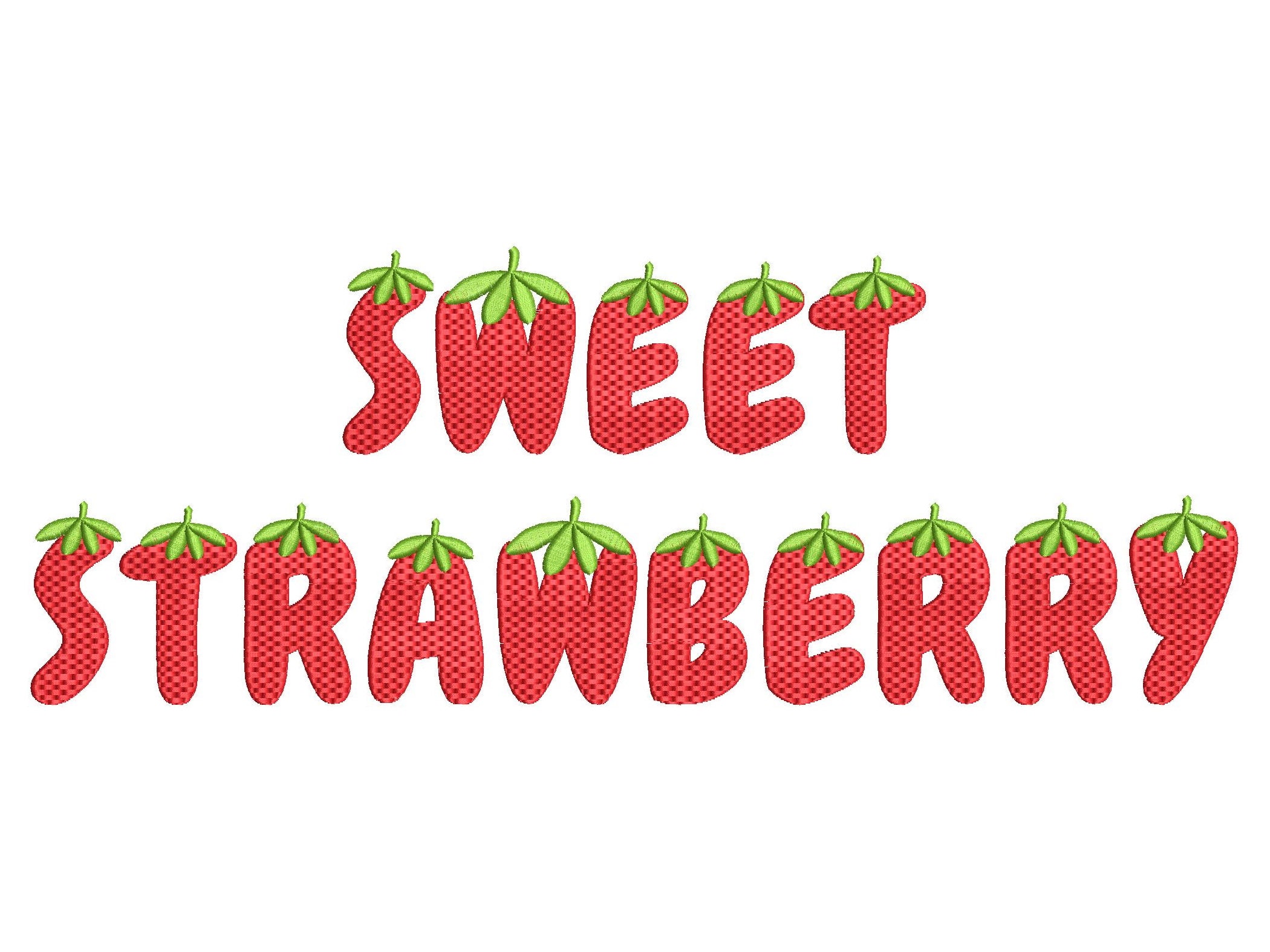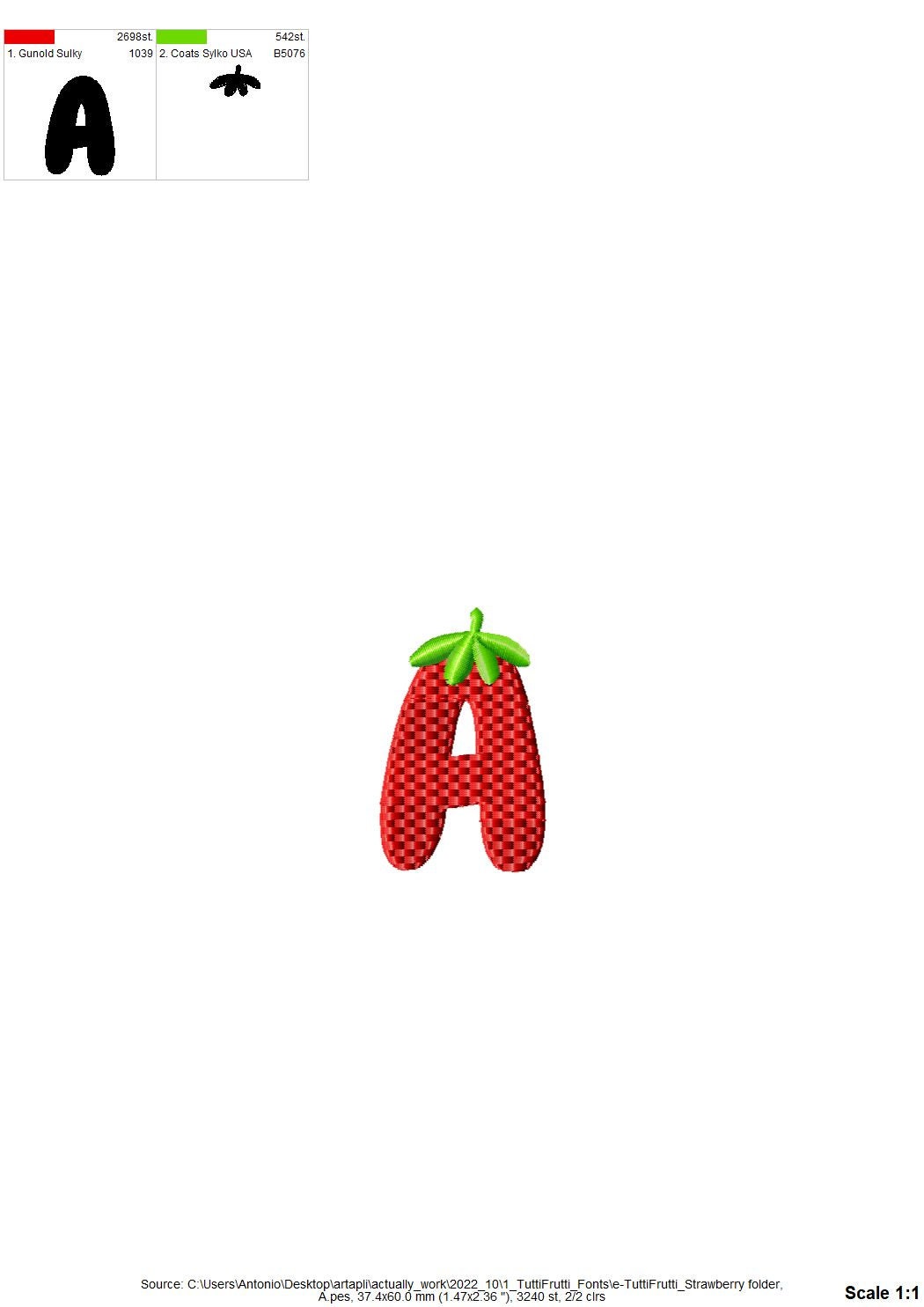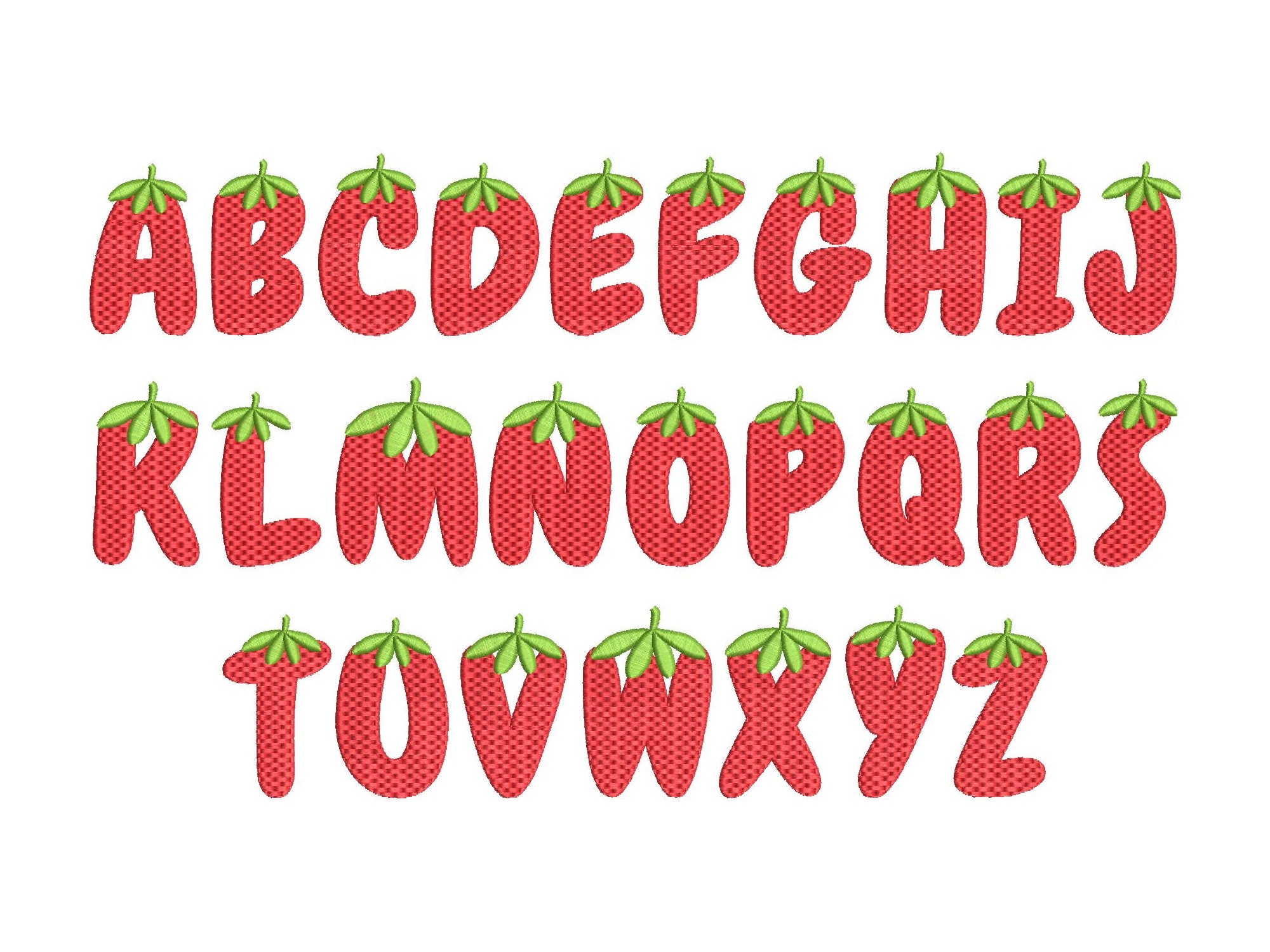
Tutti Frutti Strawberry berry FONT machine embroidery designs in assorted sizes funny alphabet letters A-Z kids name monogram, BX included
Whole alphabet A-Z capital letters.